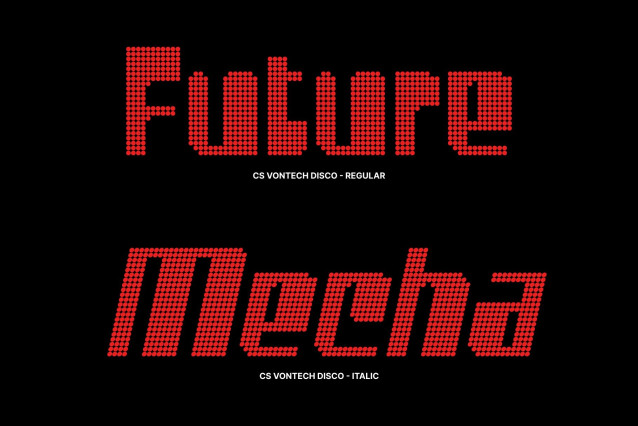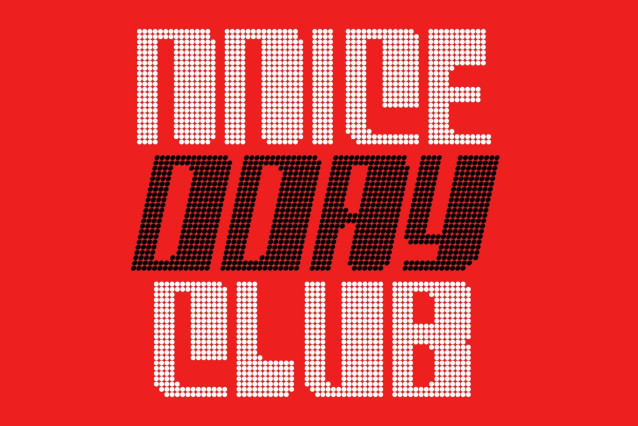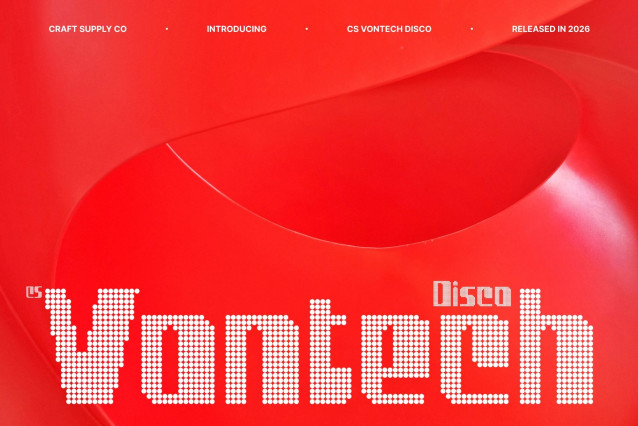
CS Vontech Disco Font
CS Vontech Disco – Y2K Futuristic Display with Dazzling Dot Energy
Retro-Future Style Meets Disco Sparkle
This Y2K display font transforms into a vibrant disco dot edition, combining early-2000s futurism with the shimmering energy of the dance floor. Bold outlines and geometric forms are enhanced with lively dotted texture, turning each letter into a glowing visual statement full of nostalgia and excitement.
Tech-Inspired Geometry with Rhythmic Glow
Sharp contours and digital-inspired shapes give the font a strong futuristic personality. The disco dot styling introduces rhythm and motion, making characters feel illuminated like LED lights and club signage while preserving the sleek Y2K structure.
Bold Expression with Playful Party Atmosphere
Confident shapes ensure strong readability, while the dotted finish injects joy, glamour, and high-energy personality. The result is typography that feels both powerful and celebratory perfect for designs that want to radiate fun and futuristic optimism.